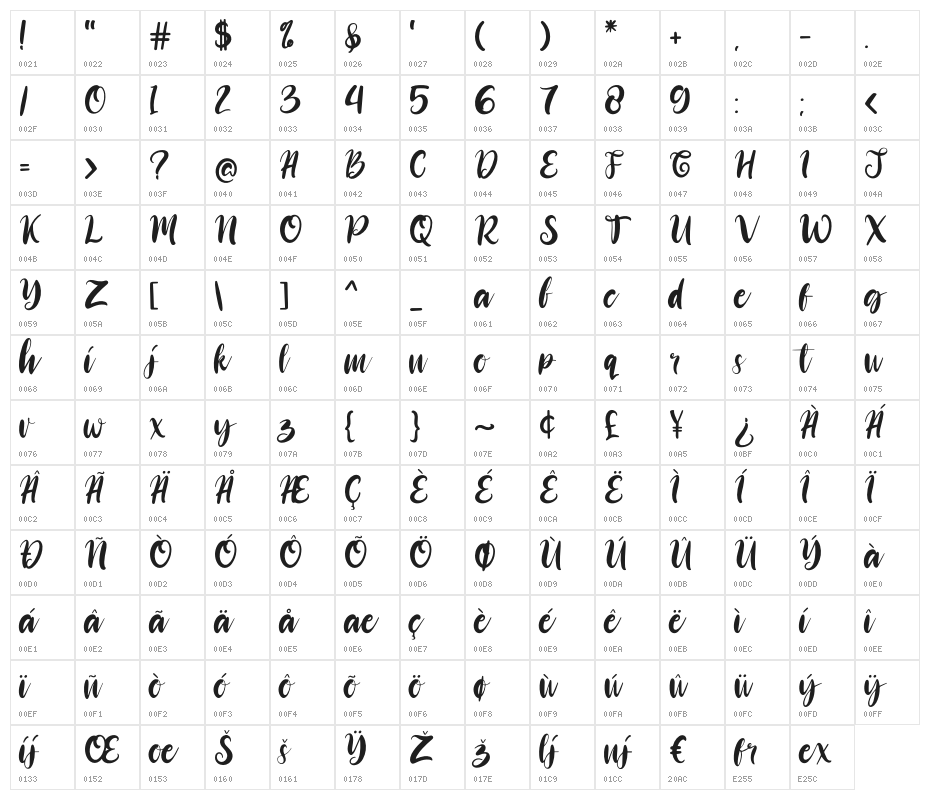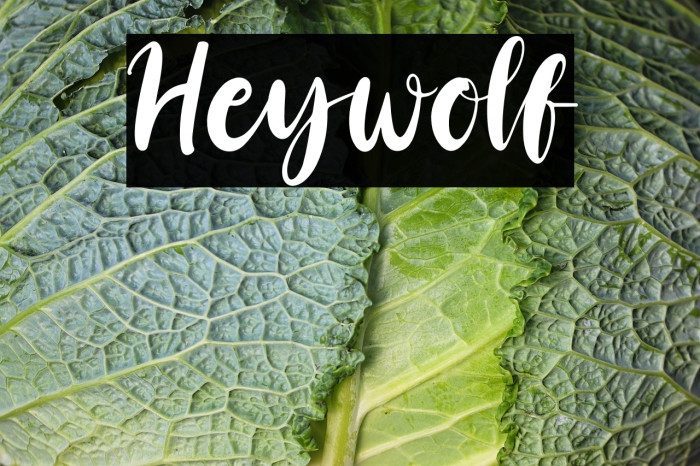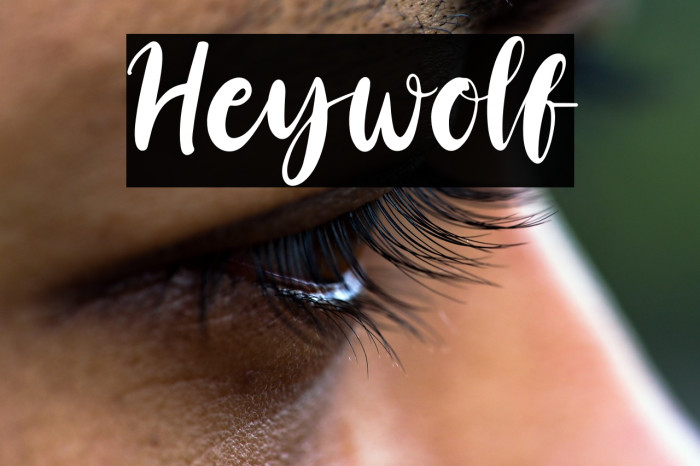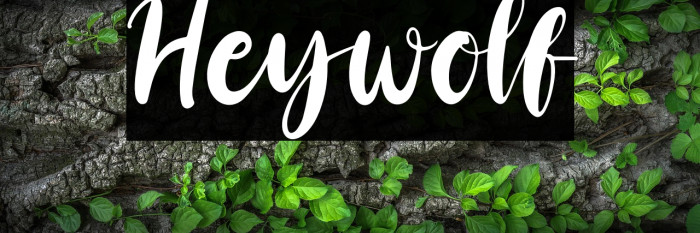
Heywolf Font
Heywolf Description
This font features a bold and expressive script style with a modern flair. The characters are fluid and dynamic, with a handwritten appearance that conveys a sense of elegance and creativity. The uppercase letters are slightly more structured, while the lowercase letters exhibit more fluidity and movement. The numbers and special characters maintain the same stylistic consistency, making the font versatile for various design needs. The strokes vary in thickness, providing a medium contrast that enhances readability while maintaining an artistic touch.
| Use Case | Logos, Headlines, Invitations |
| Proposed Projects | Ideal for branding, invitations, greeting cards, and social media graphics. |